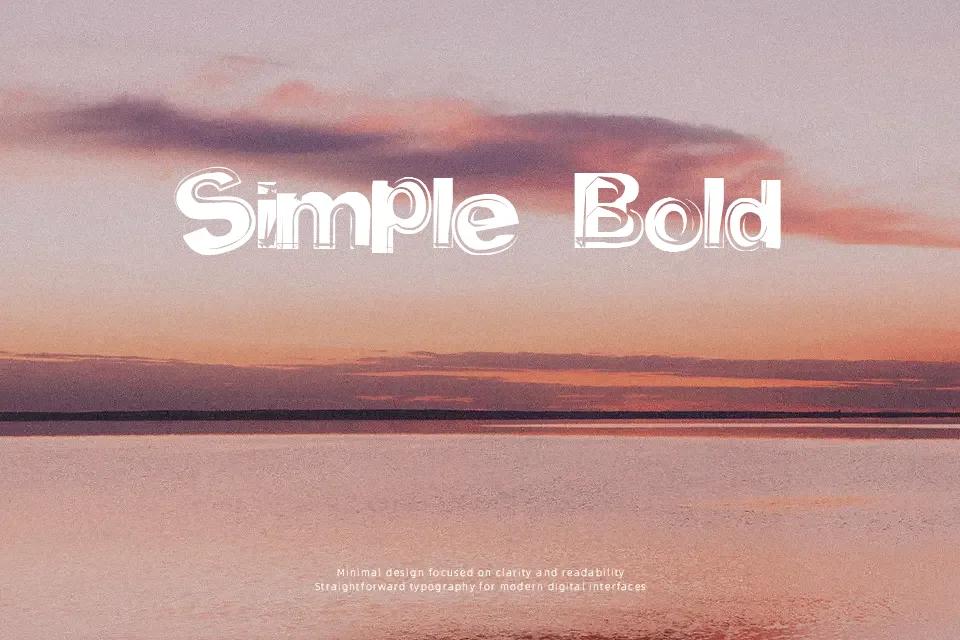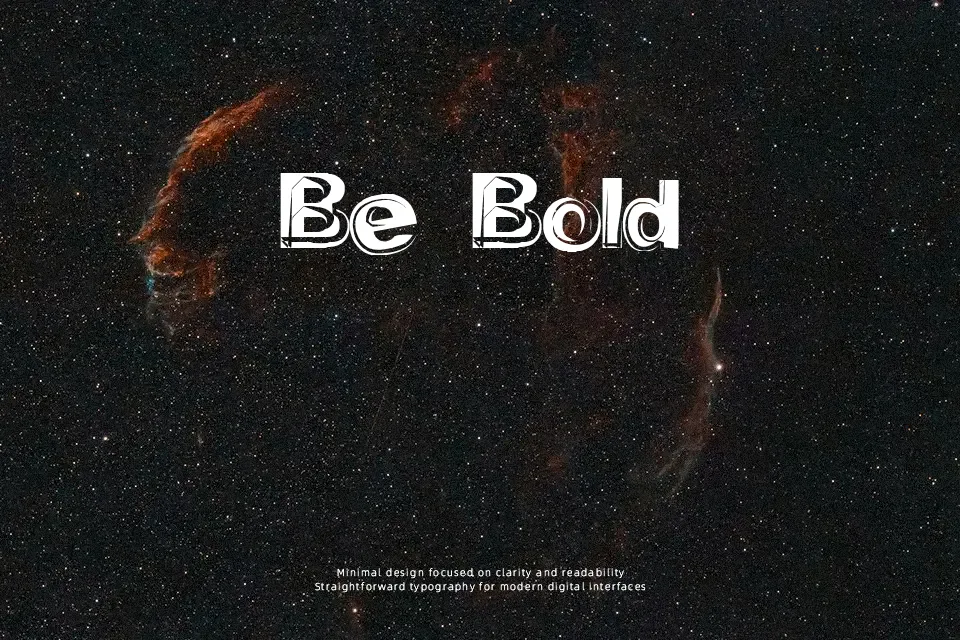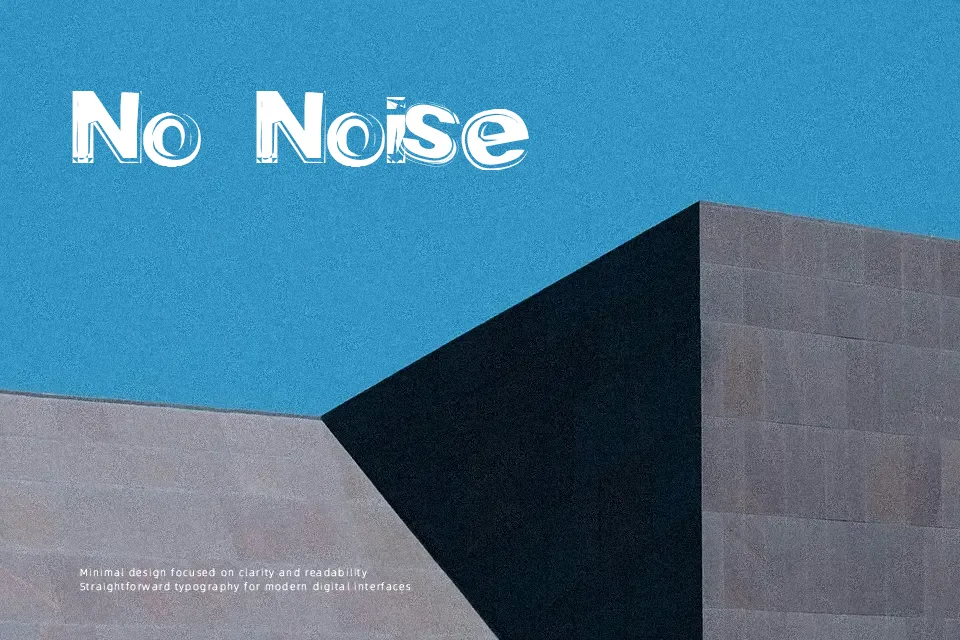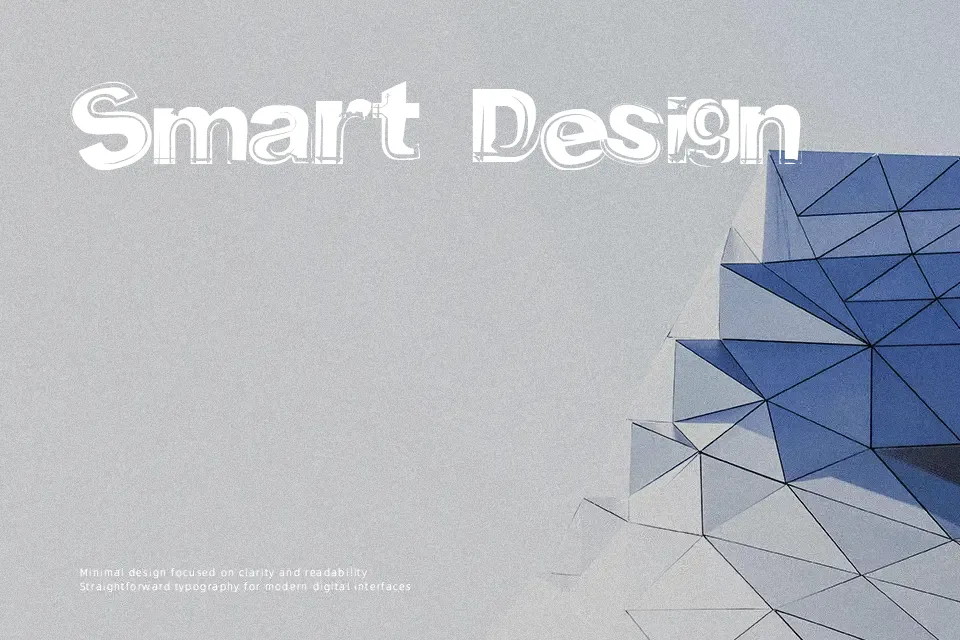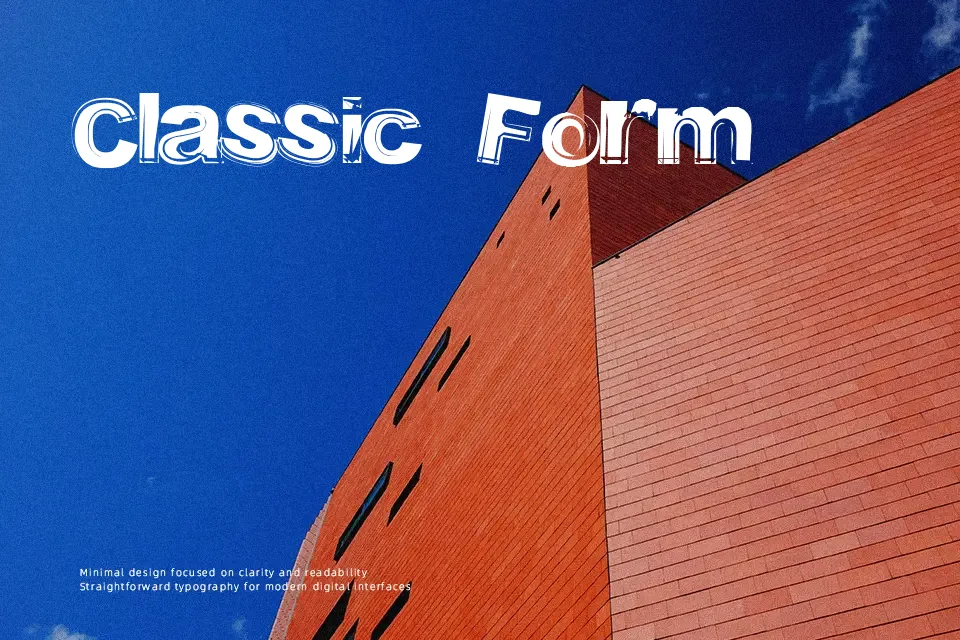
Timeportal Font
Timeportal Font introduces an experimental display aesthetic distinguished by jagged contours, fragmented internal cutouts, and dramatic stroke variations. The letterforms display deliberate structural distortions and wide, irregular character spacing that command immediate attention across prominent visual assets. Strong horizontal tensions and sharp terminals reinforce an otherworldly, futuristic presence, making the design particularly compelling for sci-fi cover art, electronic music flyers, and conceptual video game branding. However, the heavy decorative distortions and inconsistent interior spaces severely compromise legibility when set in multi-line paragraphs or smaller interface captions. While the typeface delivers striking visual punch in title treatments, dense forms inevitably reduce continuous reading comfort.
Best For: sci-fi book titles, electronic music flyers, conceptual video game branding, festival poster headlines
Not Ideal For: long paragraph text, mobile user interface labels, dense legal documentation, corporate financial reports
Perfect for film, gaming, and headline, with a creative and decorative style.